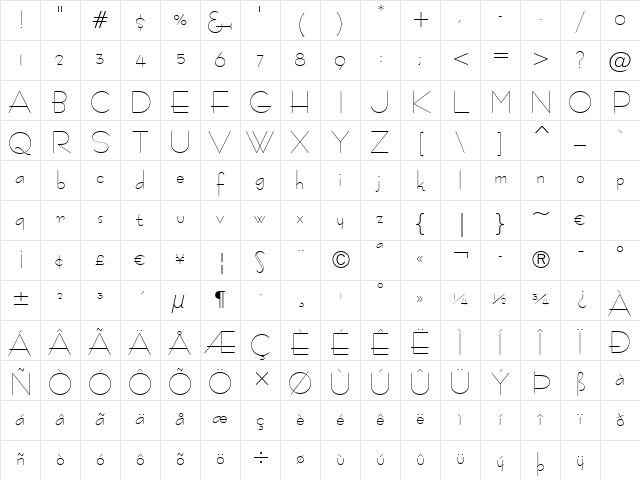
BernhardFashion BT Regular
Design Context for BernhardFashion BT
BernhardFashion BT is a composed and adaptable typeface that performs quietly and consistently across a wide range of design contexts.